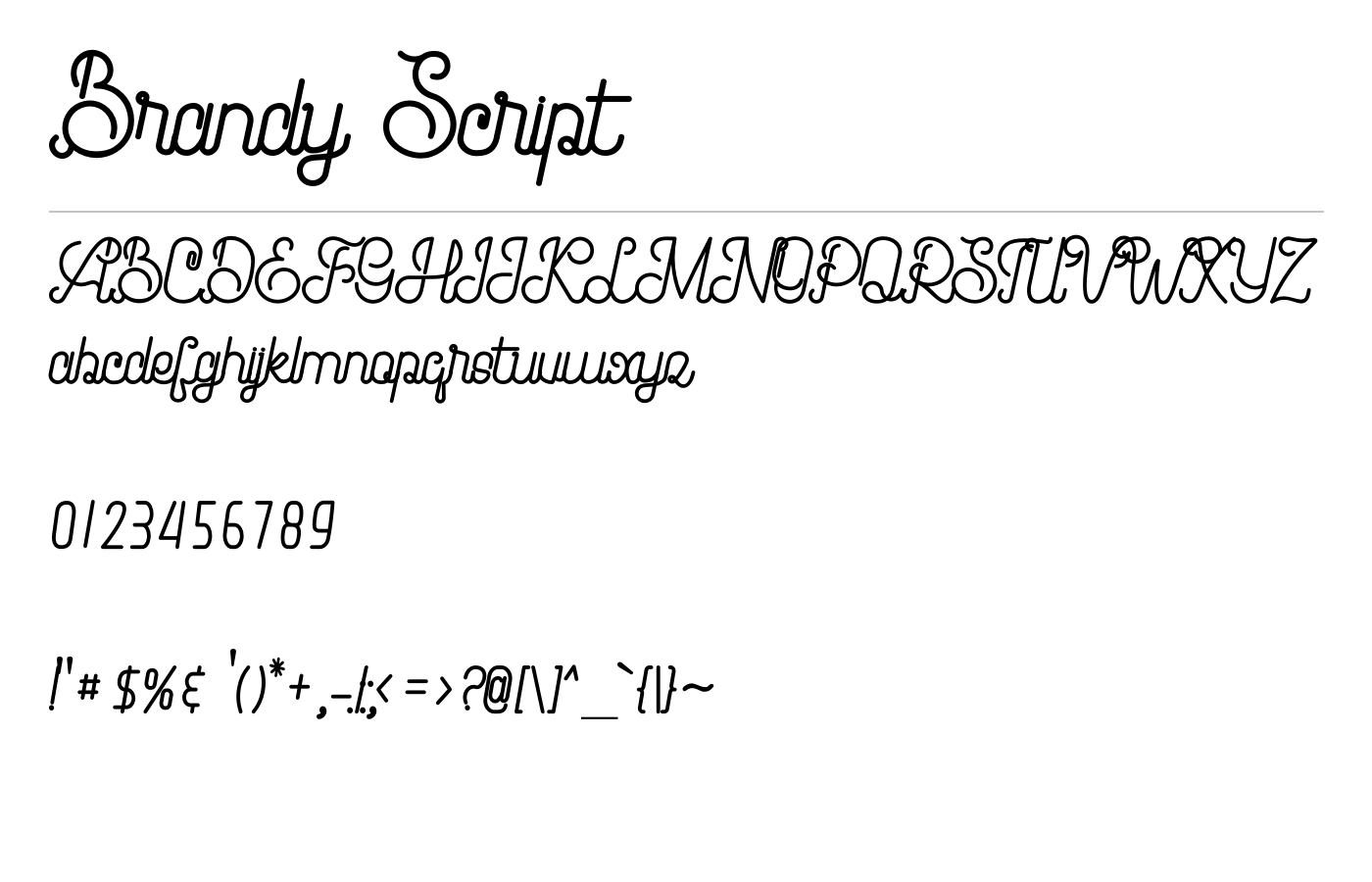
Brandy Script is a playful and elegant script font with a consistent, slender stroke that features charming loops and curls, giving it a hand-lettered, vintage feel. Its tall, narrow letterforms combined with whimsical details make it ideal for creative branding, invitations, and stylish headlines where a touch of personality and sophistication is desired. This font works especially well in designs seeking a unique, refined, yet approachable look.
Brandy Script Font